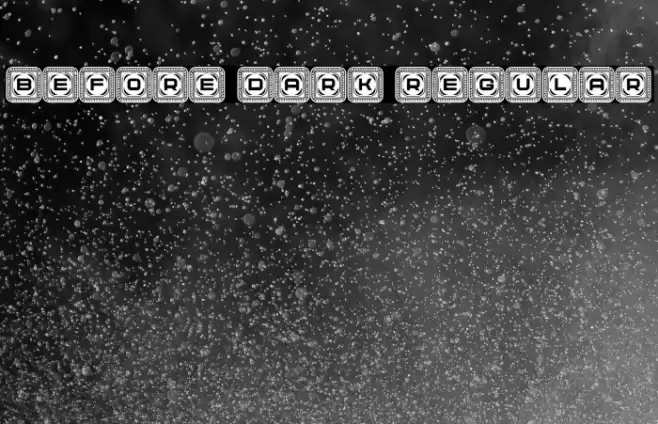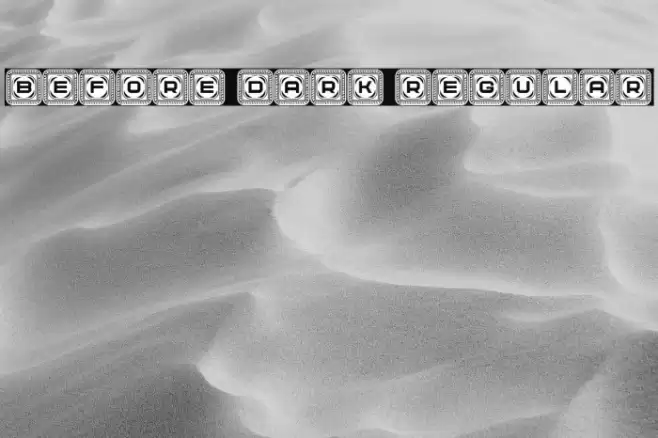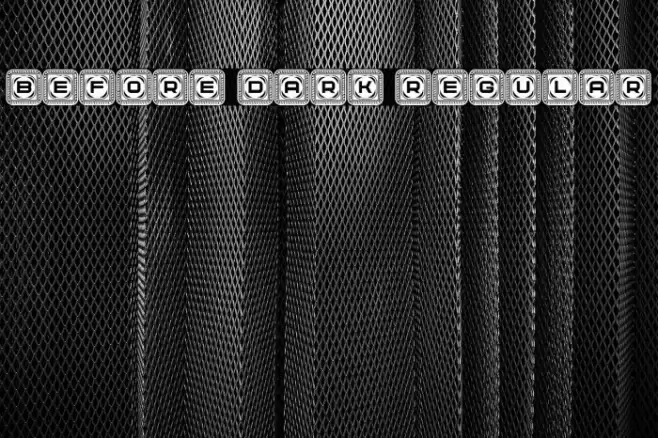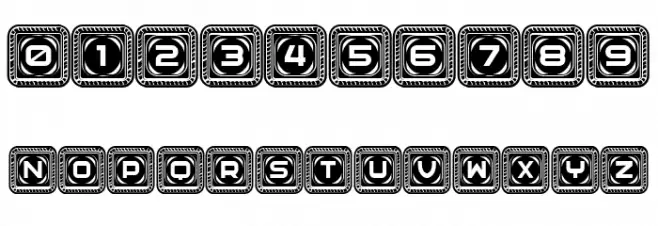
Before Dark Regular Font
Before Dark Regular Description
This font features a bold and decorative style, characterized by its unique block-like appearance. Each character is enclosed within a square with a double-lined border, giving it a distinct, retro aesthetic. The letters and numbers are bold and prominent, with a slight three-dimensional effect created by the shadowing within each block. The font's design is reminiscent of vintage typewriter keys or old signage, making it stand out with its eye-catching and playful look. The characters are evenly spaced, ensuring readability while maintaining a consistent visual rhythm across the text.
A bold, decorative font with a retro, block-like style and enclosed characters from Uncategorized fonts.
- Font: Before Dark Regular
- Proposed Projects: Ideal for vintage-themed posters, retro branding, signage, and creative design projects that require a standout, nostalgic look.
- Overall Style: Vintage